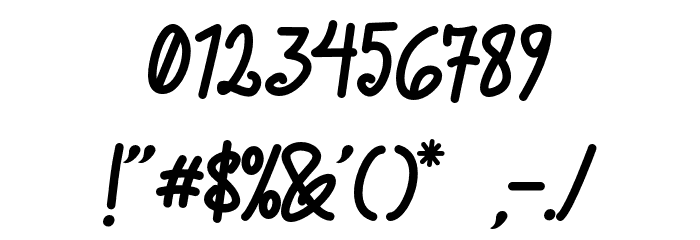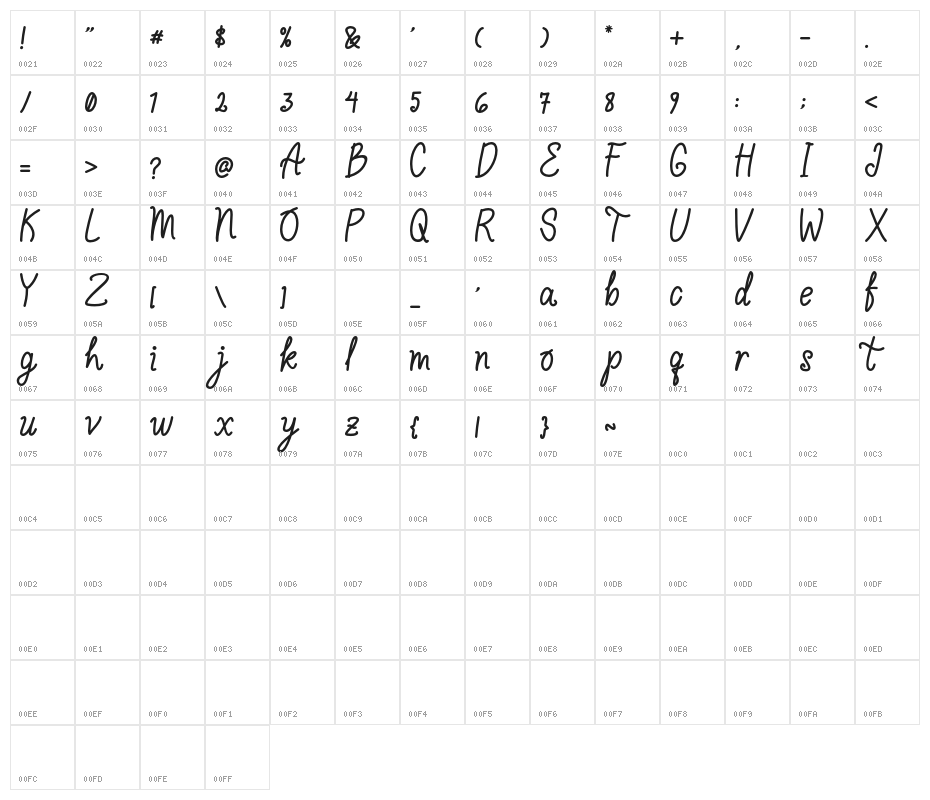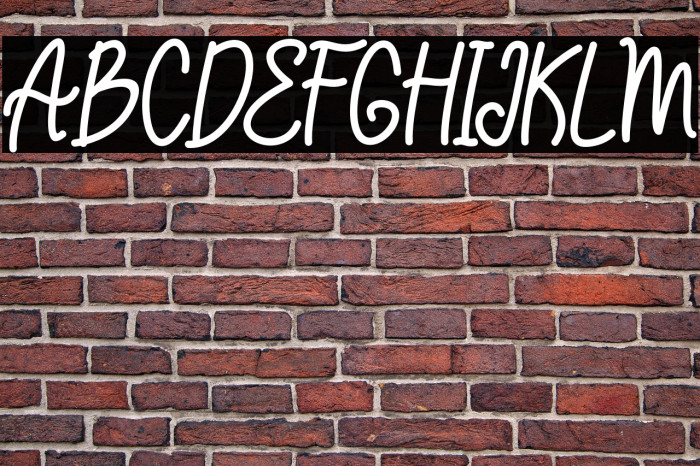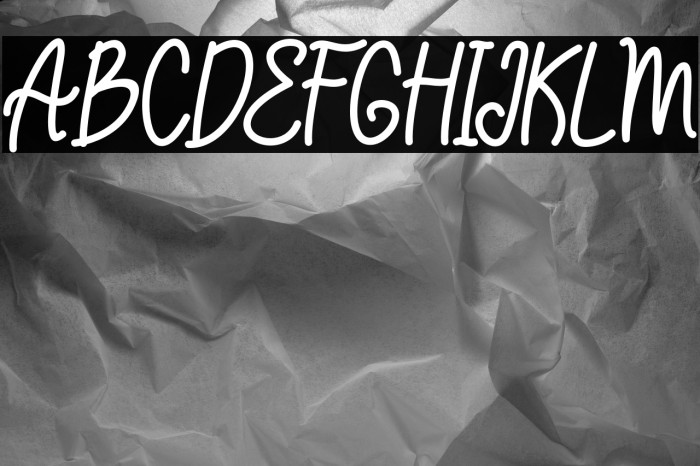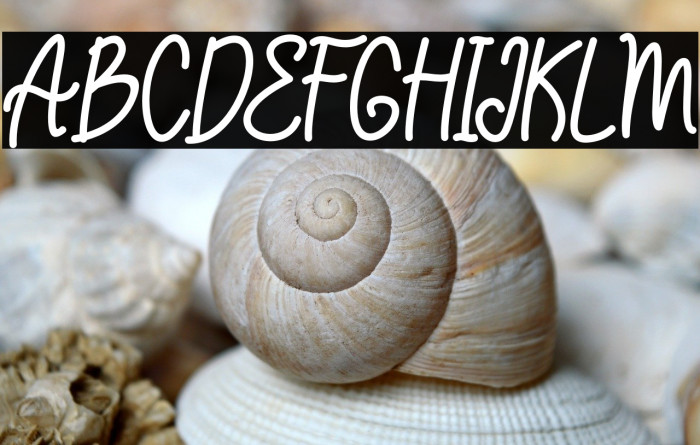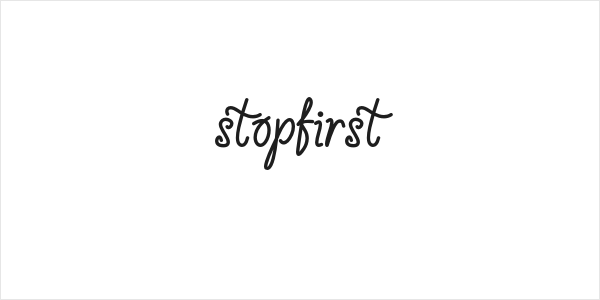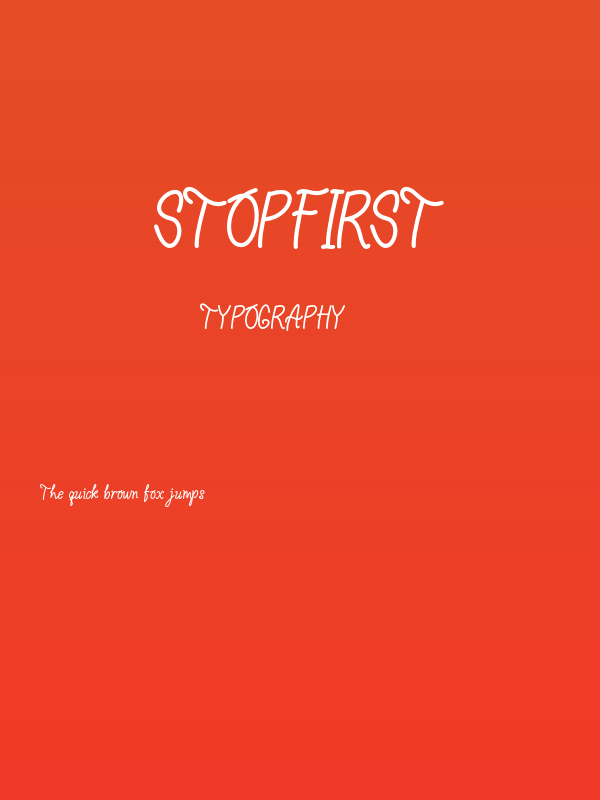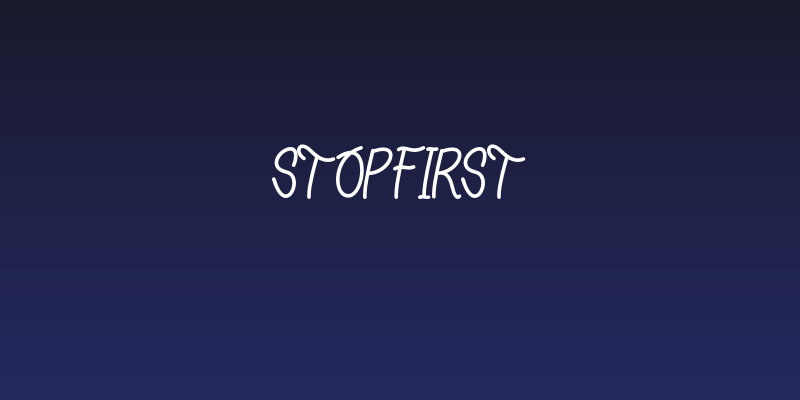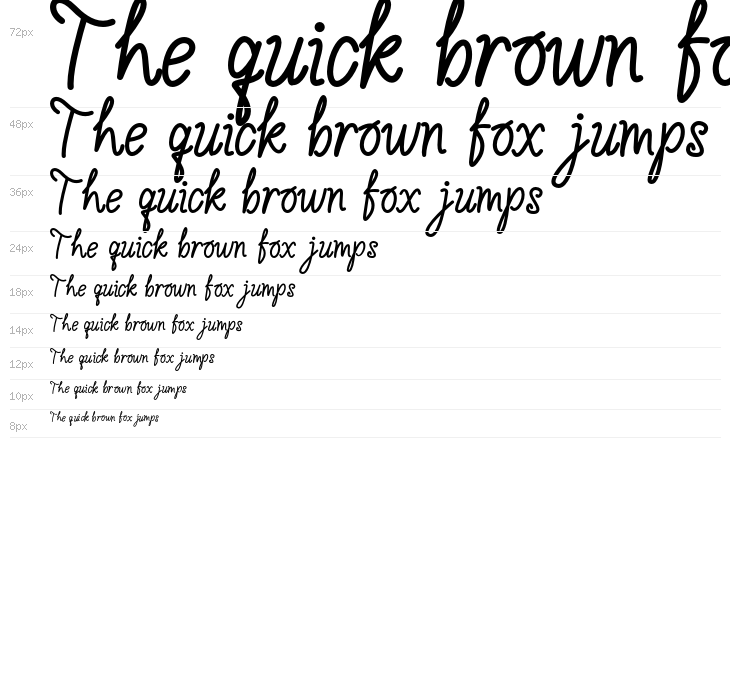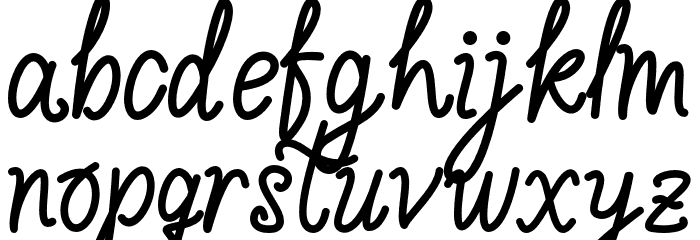
stopfirst Font
stopfirst Description
This font features a playful and energetic script style, characterized by its flowing and connected letterforms. The uppercase letters are bold and slightly slanted, giving a sense of movement and dynamism. The lowercase letters maintain a consistent style with smooth curves and loops, enhancing the handwritten aesthetic. The numerals are clear and legible, matching the overall style with a touch of whimsy. Special characters are well-integrated, maintaining the fluidity and coherence of the font. This font is ideal for projects that require a personal and informal touch, such as invitations, greeting cards, or creative branding.